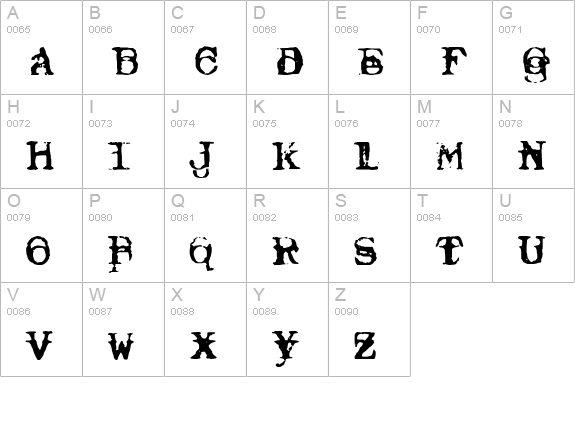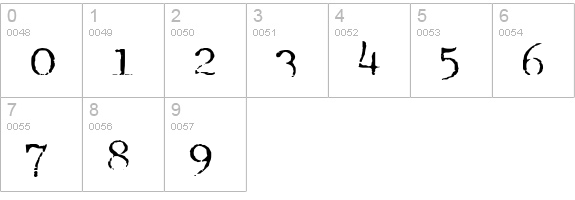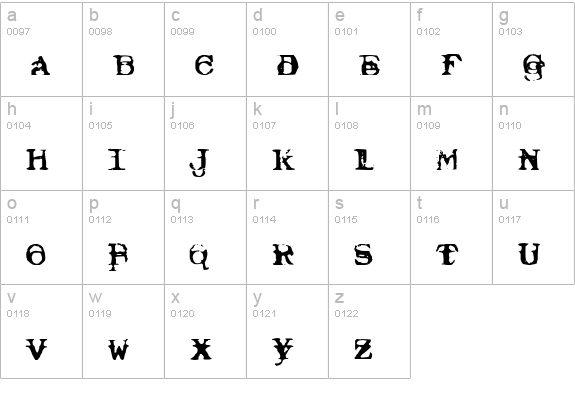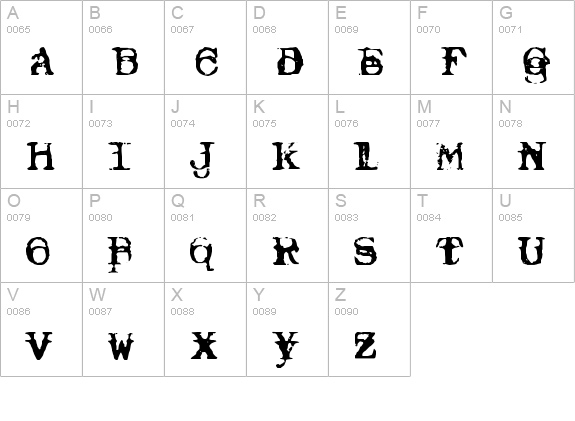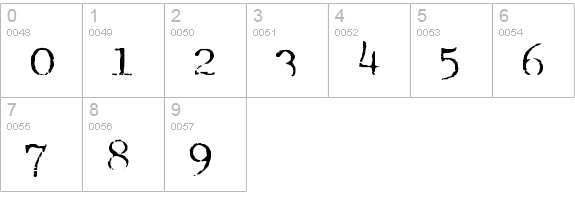
Typewriter Royal 200 Trashed Font Details
Introducing Typewriter Royal 200 Trashed font, a stunning display typeface that effortlessly captures the essence of vintage typewriters with a modern twist. This unique font is a perfect blend of retro charm and contemporary design, making it a versatile choice for various creative projects. Typewriter Royal 200 Trashed font features a beautifully distressed appearance, reminiscent of worn-out typewriter keys that have been tirelessly tapped upon for countless hours. The meticulously crafted imperfections and subtle texture add a touch of authenticity, giving your designs a distinct and nostalgic feel. Whether you are working on a poster, logo, branding, or any other design project that requires a touch of old-world charm, Typewriter Royal 200 Trashed font is sure to deliver. Its bold letterforms and carefully curated details make it stand out on any medium, be it digital or print. One of the best parts is that Typewriter Royal 200 Trashed font is freely available to download at FontsMarket.com. This means that you can effortlessly add this extraordinary font to your collection without any cost. With just a few clicks, you can infuse your designs with the timeless appeal of vintage typewriters, all while staying within budget. So why wait? Unlock your creativity and elevate your designs with Typewriter Royal 200 Trashed font. Download it for free at FontsMarket.com today and embark on a typographic journey that blends the past with the present in a truly captivating way.